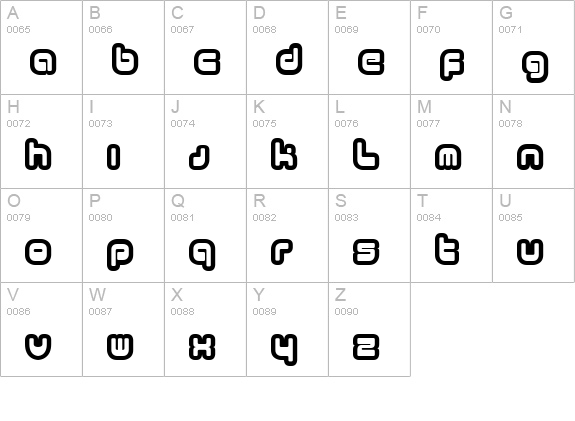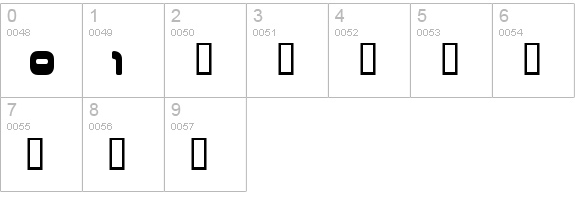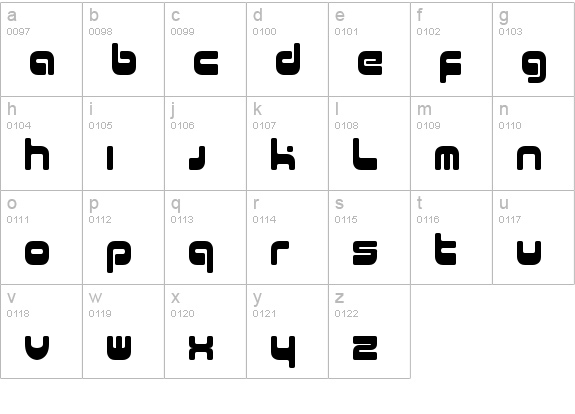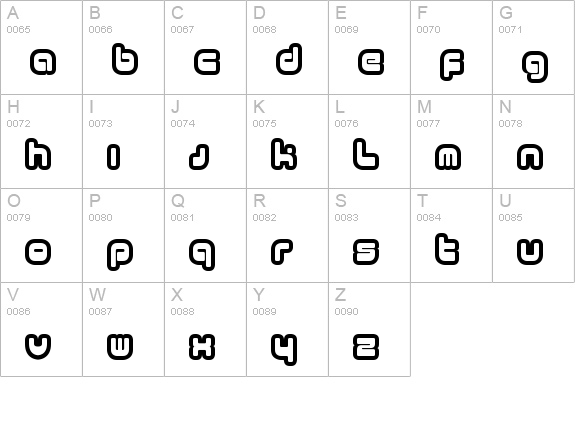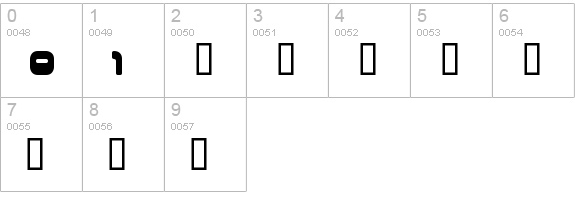
The 11.20 font is a versatile and modern typeface that is perfect for a wide range of design projects. With its clean lines and elegant curves, this font is sure to make your text stand out. Whether you are designing a website, creating a poster, or working on a branding project, the 11.20 font is a great choice. One of the best things about the 11.20 font is that it is available for free download at FontsMarket.com. This means that you can start using this font in your projects right away, without having to worry about any additional costs. Simply head to FontsMarket.com, download the 11.20 font, and start incorporating it into your designs today. With its sleek design and professional look, the 11.20 font is sure to elevate any project you are working on. Whether you are a designer, a business owner, or a student, this font is a great addition to your toolkit. So don't wait any longer – head to FontsMarket.com and download the 11.20 font for free today!